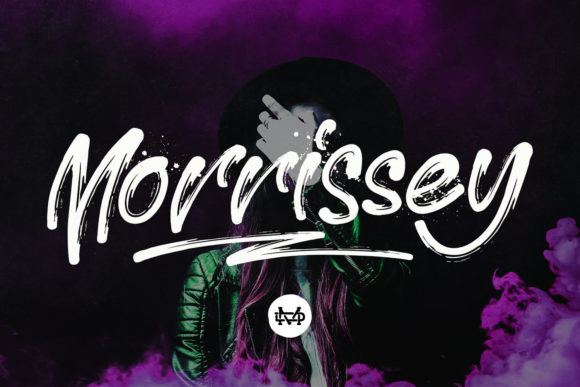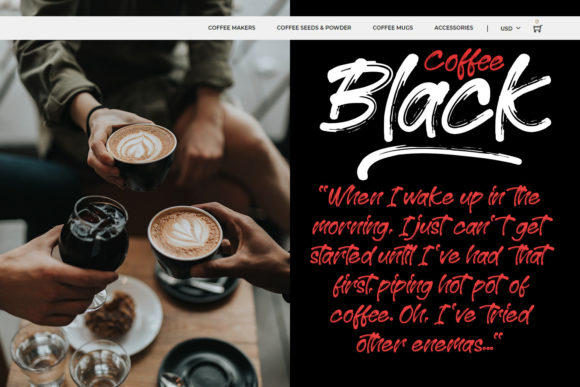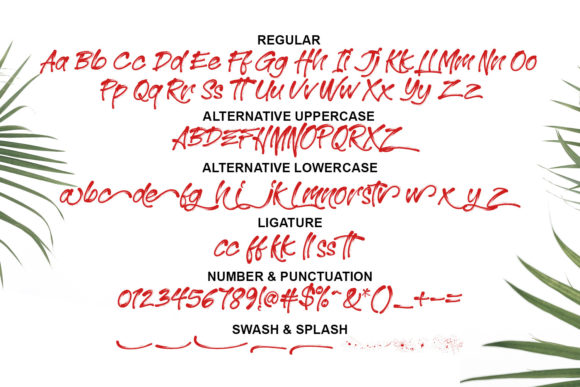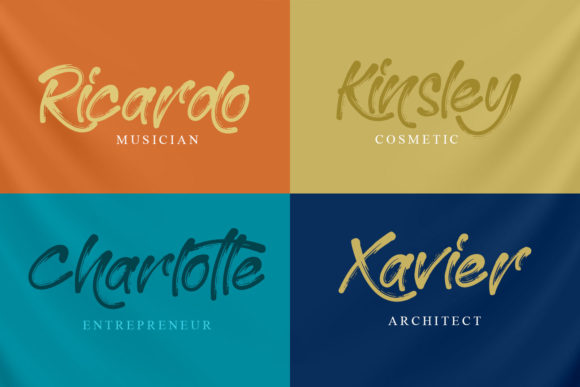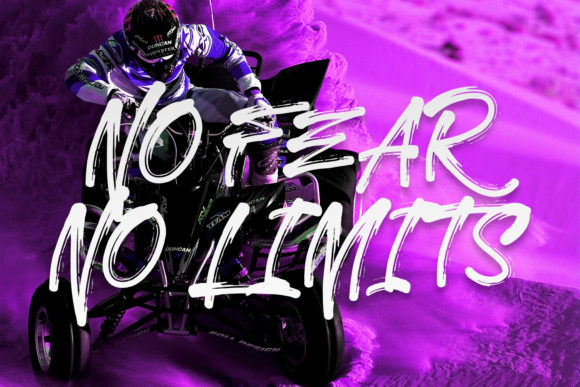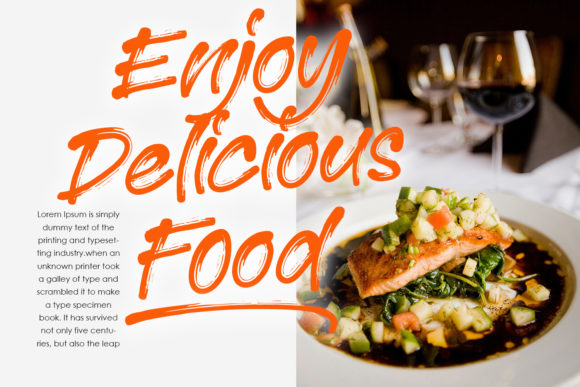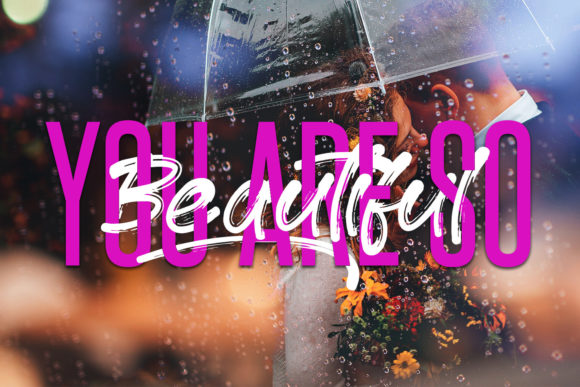
Morrissey Font
About Morrissey Font
Morrissey is a cool, brushed and casual handwritten font. Its informal style and trendy vibe will make this font a go-to choice for each of the creations that require a relaxed touch.